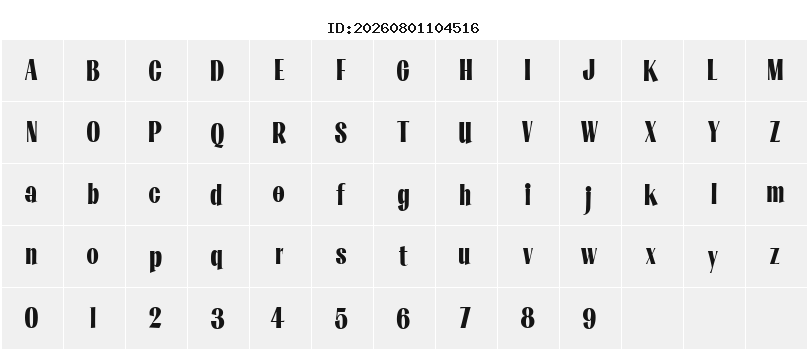
LHF Opening Night REGULAR Preview
• Font Name: LHF Opening Night REGULAR
• Full Font Name: LHF Opening Night REGULAR
About LHF Opening Night REGULAR.ttf
LHF Opening Night REGULAR.ttf is a modern, elegant sans-serif font designed for ultimate readability and visual harmony. Perfect for branding, headlines, web design, and print materials.